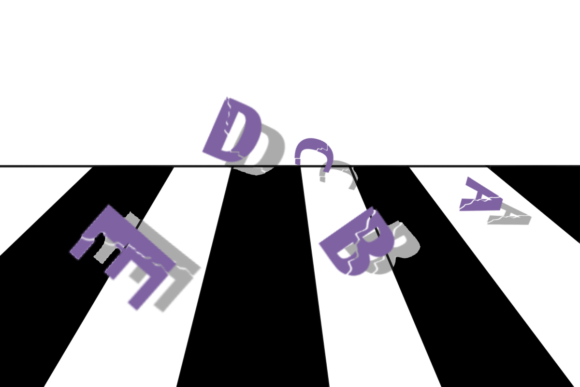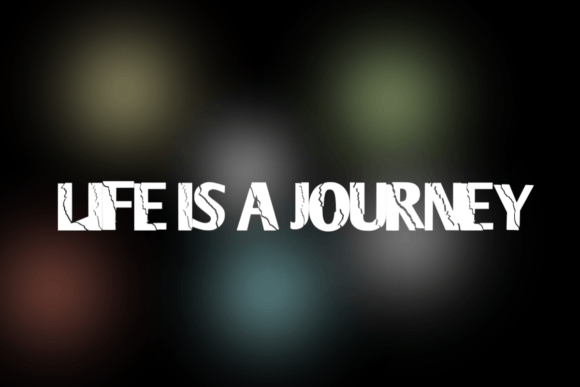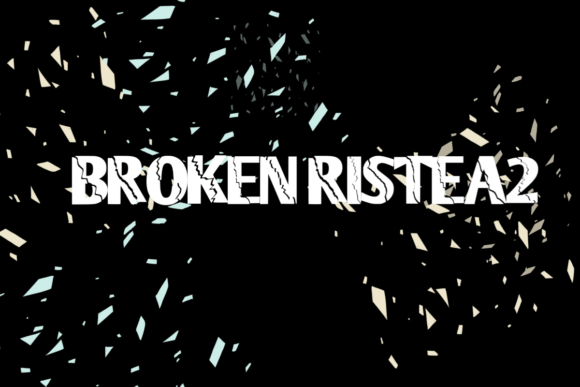
Introducing Brokenristea2 Font: Elevate Your Designs with a Unique Broken Effect
Are you tired of using the same old fonts in your designs? Do you want to add a touch of uniqueness and creativity to your projects? Look no further than the Brokenristea2 font, the second edition of the popular broken effect font. This font is designed to make your billboards, posters, and other visual materials stand out from the crowd. With its distinctive broken effect, you can add a level of sophistication and elegance to your designs.
What is Brokenristea2 Font?
Brokenristea2 font is a carefully crafted typeface that features a broken effect, giving it a distinctive and eye-catching appearance. The font is perfect for designers and crafters who want to add a touch of personality to their projects. Whether you’re working on a billboard, poster, or social media graphic, this font is sure to make your design pop.
Key Features of Brokenristea2 Font
- Unique Broken Effect: The broken effect of this font is what sets it apart from other fonts. It’s perfect for adding a touch of edginess to your designs.
- High-Quality Design: The font is designed with high-quality and precision, ensuring that it looks great in any size or resolution.
- Versatile: The font can be used for a wide range of projects, from billboards and posters to social media graphics and more.
Benefits of Using Brokenristea2 Font
Using the Brokenristea2 font can bring a number of benefits to your designs. Here are just a few:
- Adds Visual Interest: The broken effect of the font adds visual interest to your designs, making them more engaging and attention-grabbing.
- Increases Creativity: The unique appearance of the font can inspire creativity and help you think outside the box.
- Enhances Professionalism: The high-quality design of the font can enhance the professionalism of your designs, making them look more polished and refined.
Tips and Tricks for Using Brokenristea2 Font
Here are a few tips and tricks for using the Brokenristea2 font:
- Experiment with Different Sizes: Experiment with different sizes to find the one that works best for your design.
- Pair with Other Fonts: Pair the font with other fonts to create a unique and interesting combination.
- Use in Combination with Images: Use the font in combination with images to add visual interest and depth to your designs.
This second edition of the broken effect font will make your billboard even more attractive. Give it a try and be creative something spectacular! The Brokenristea2 font is a unique and versatile typeface that can add a touch of personality and creativity to your designs. With its distinctive broken effect and high-quality design, it’s perfect for designers and crafters who want to take their projects to the next level. So why wait? Download the Brokenristea2 font today and start creating something amazing!